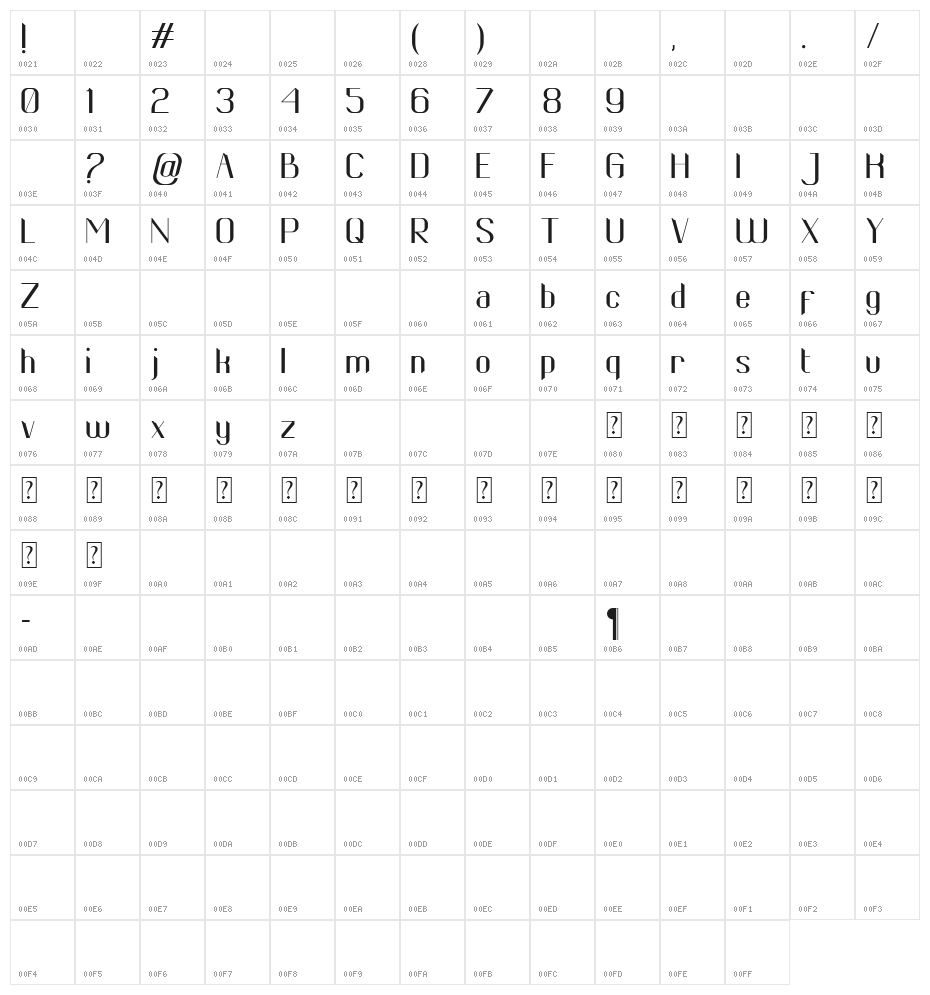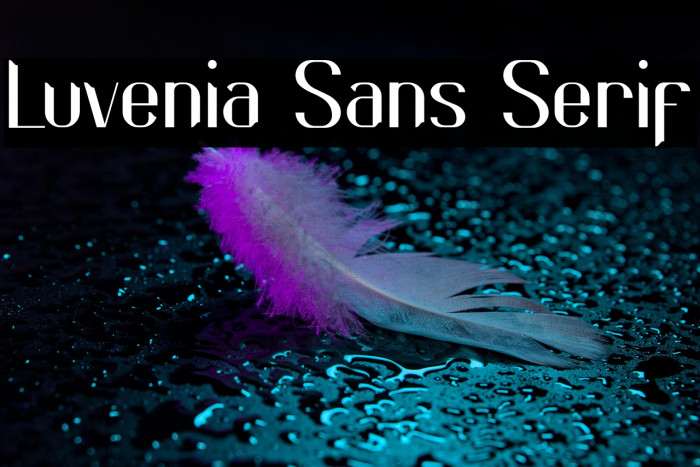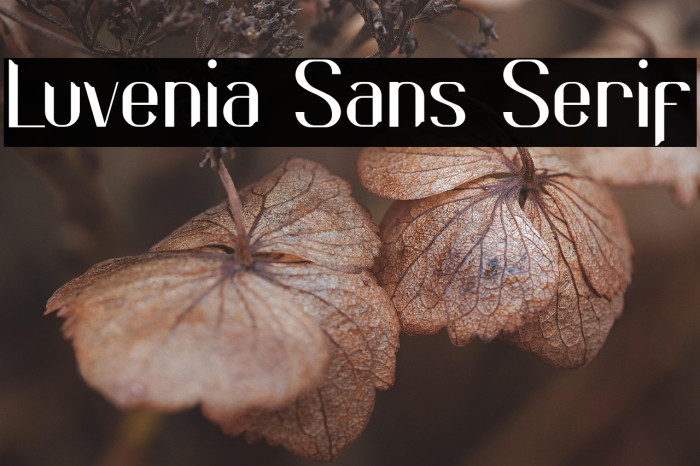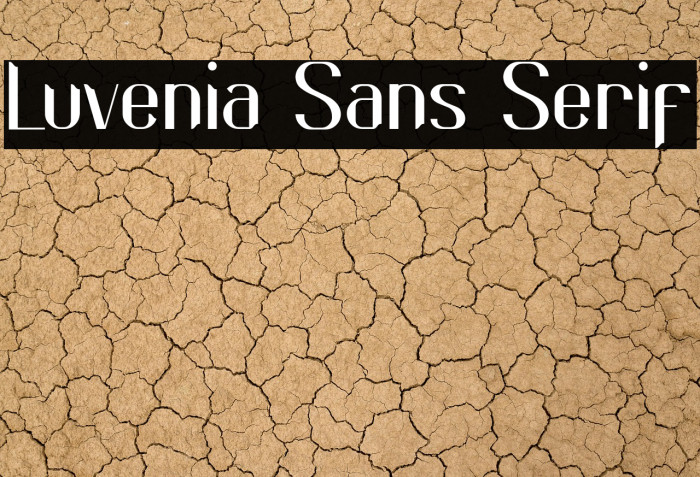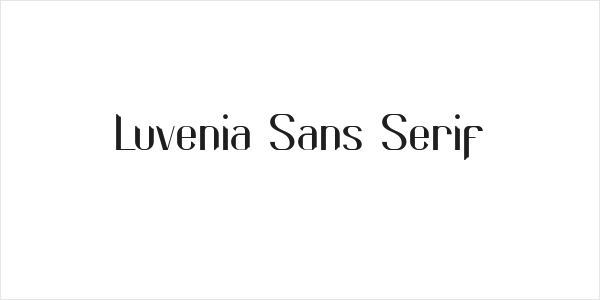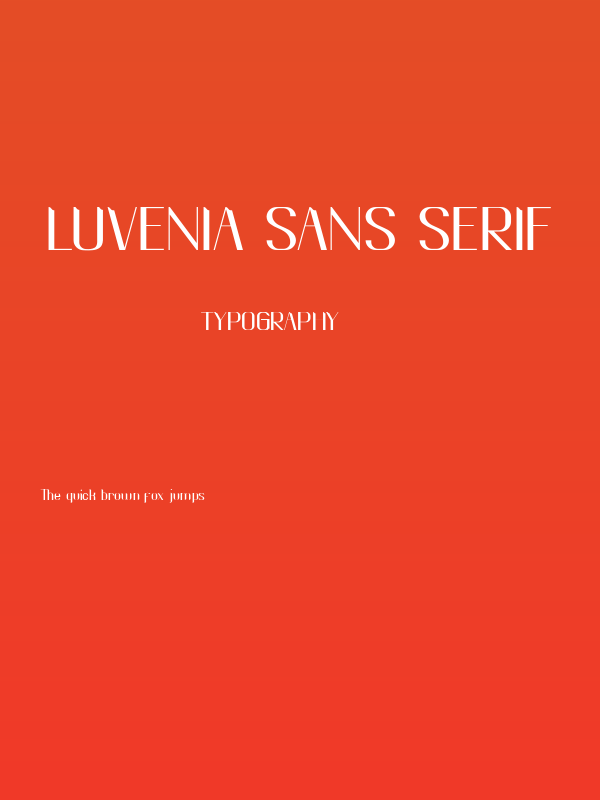
Luvenia Sans Serif Font
Luvenia Sans Serif Description
This font exhibits a modern and sleek design with a sans-serif style. The characters are characterized by clean lines and a geometric structure, giving it a contemporary feel. The uppercase letters are bold and commanding, while the lowercase letters maintain a consistent flow with slightly rounded edges. The numerals are distinct and clear, ensuring readability. Special characters are designed with the same attention to detail, making them fit seamlessly with the rest of the font. Overall, this font is versatile and can be used in various design contexts.
| Use Case | Headlines, Logos, Digital Media |
| Proposed Projects | Ideal for branding, advertising, digital media, and editorial design projects. |